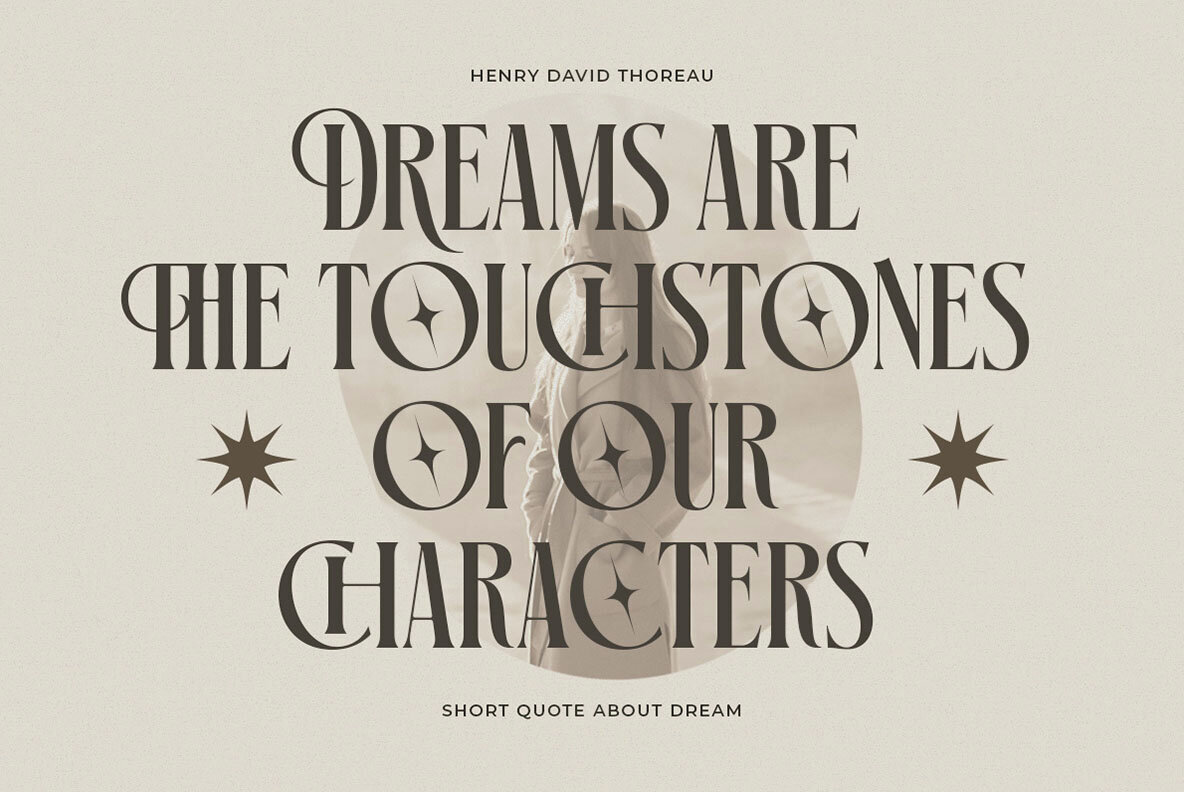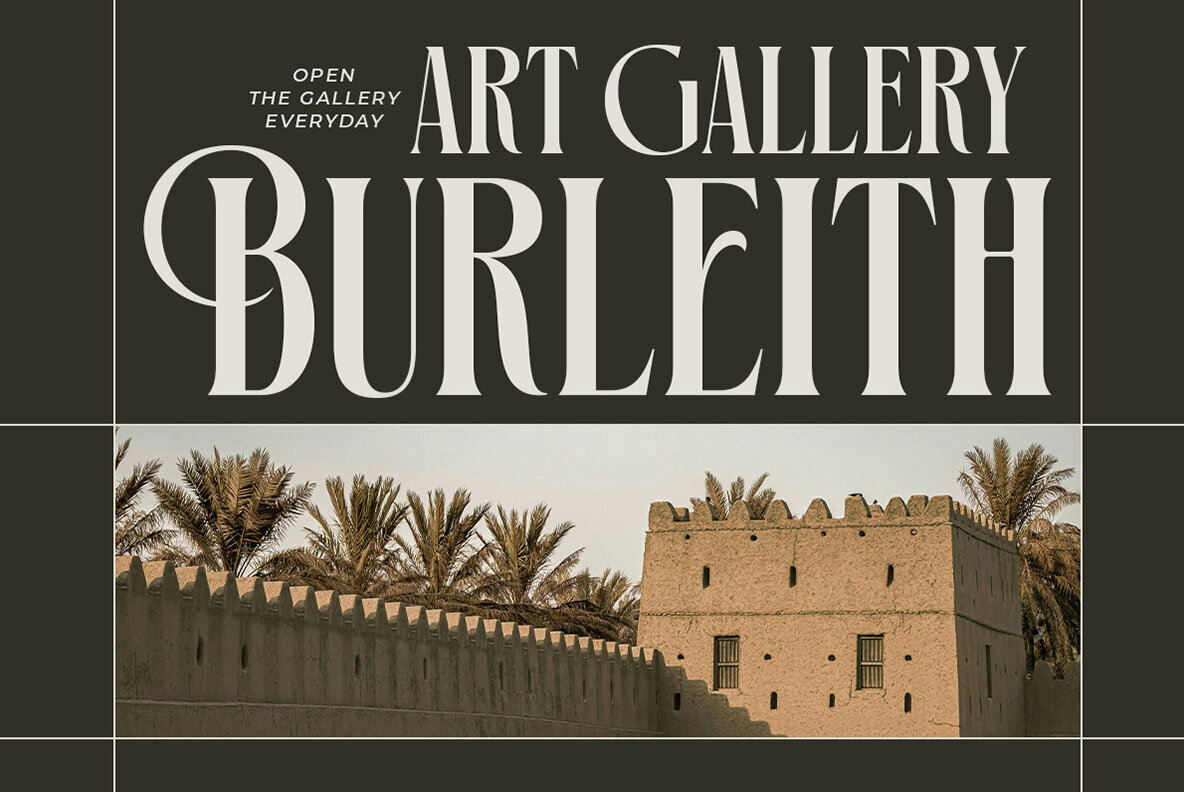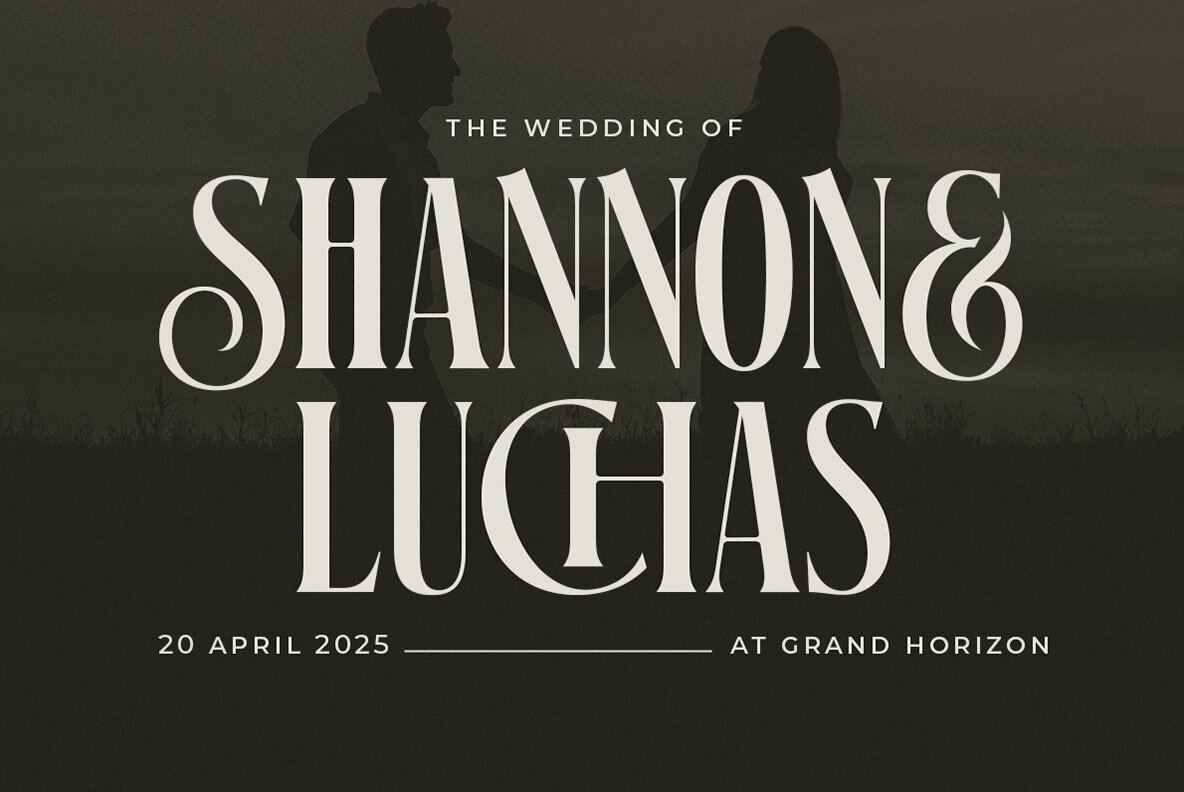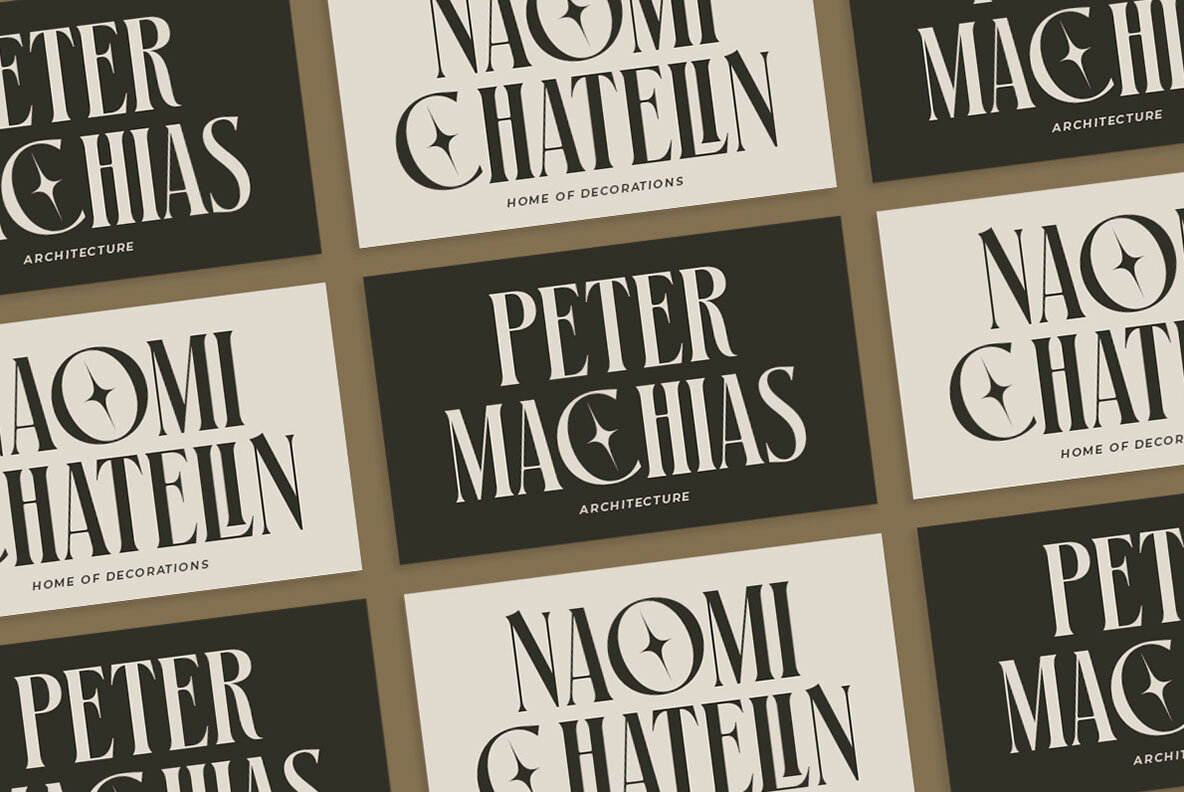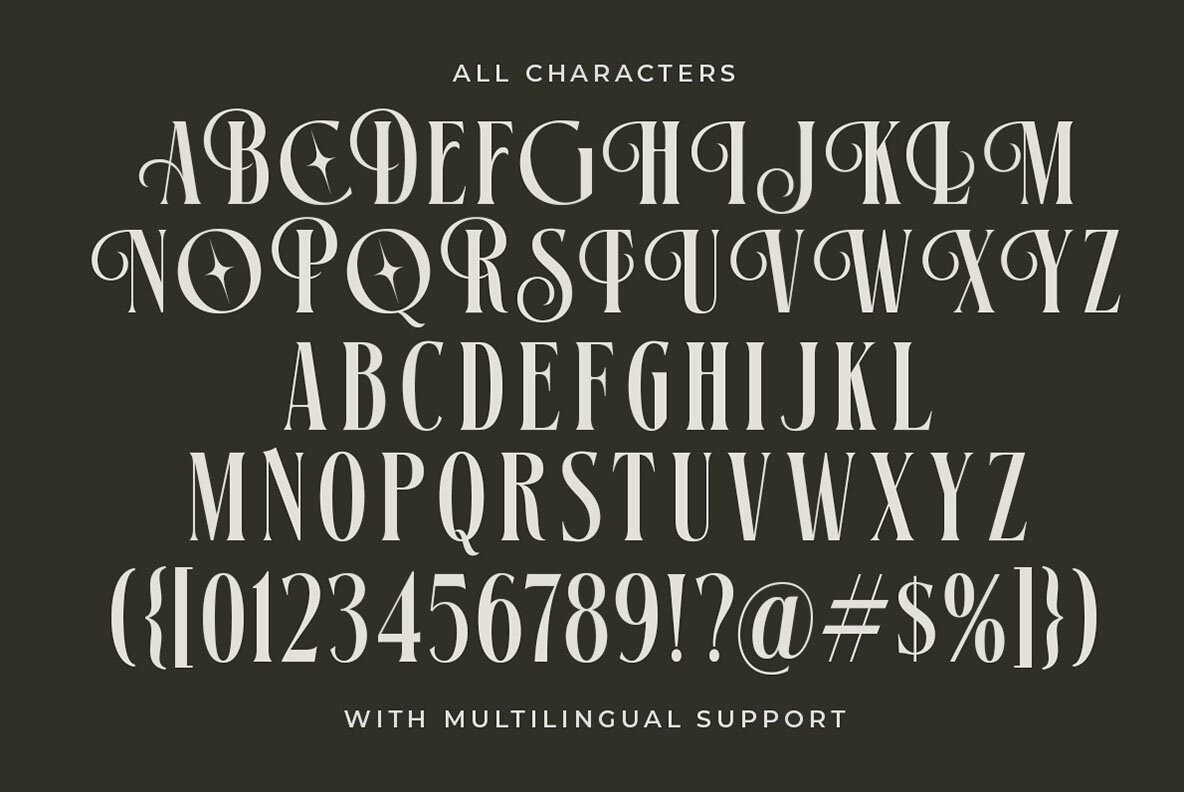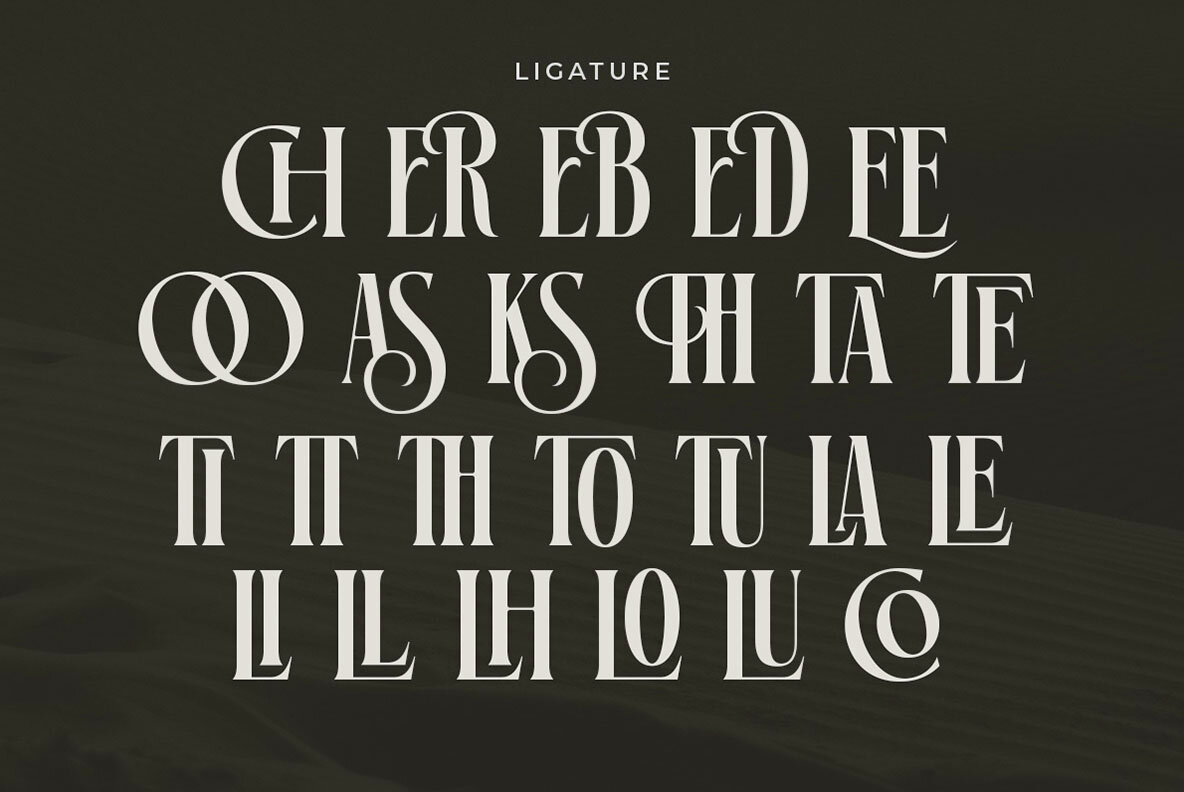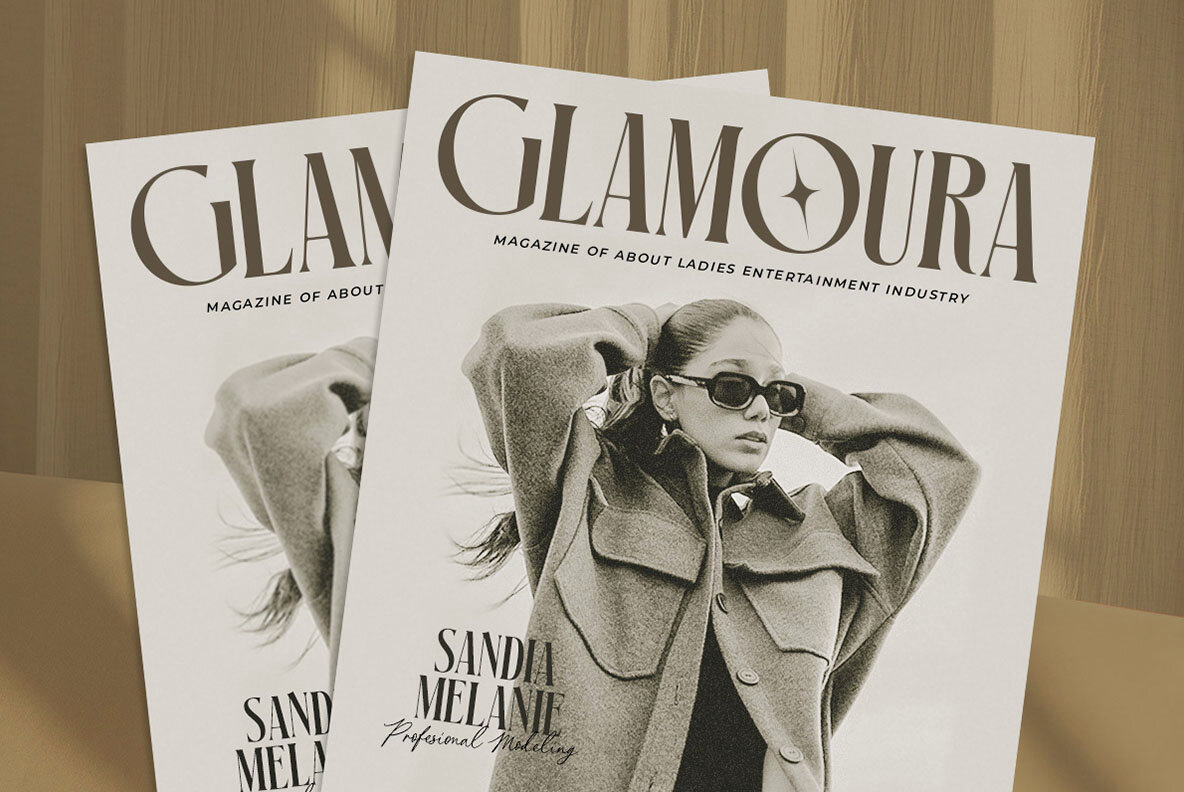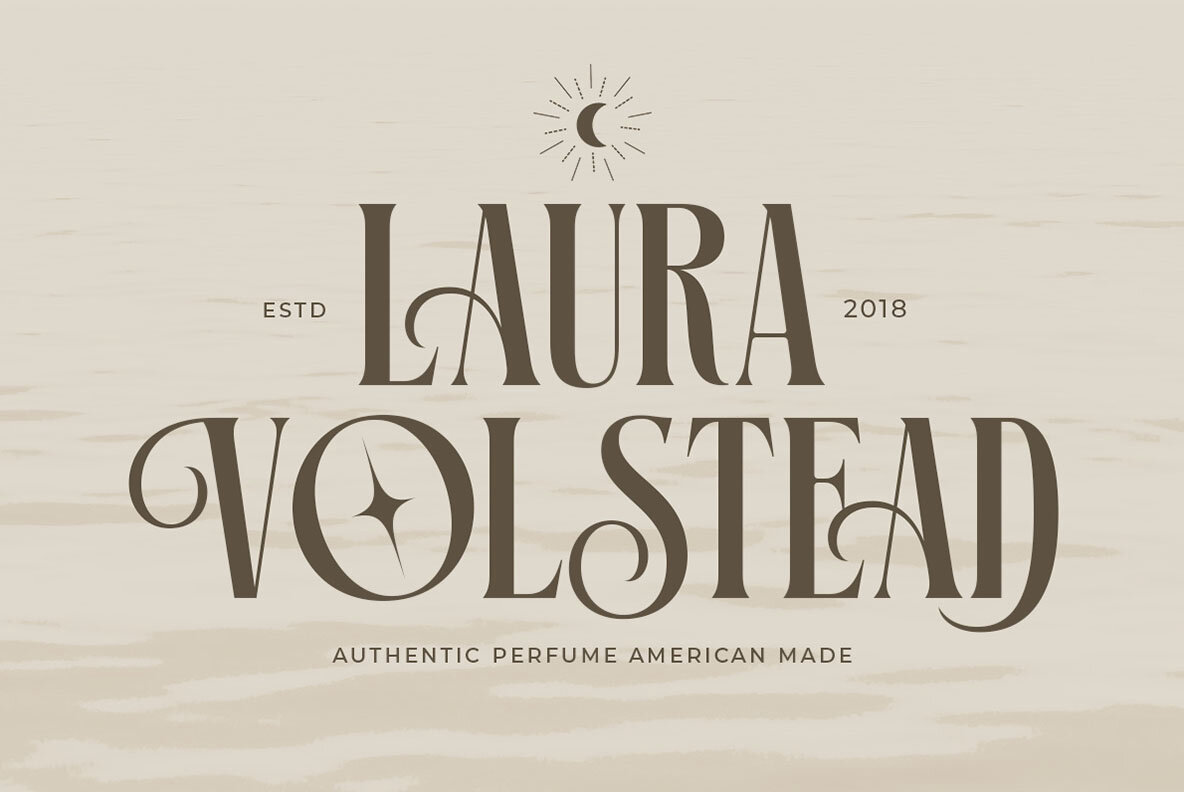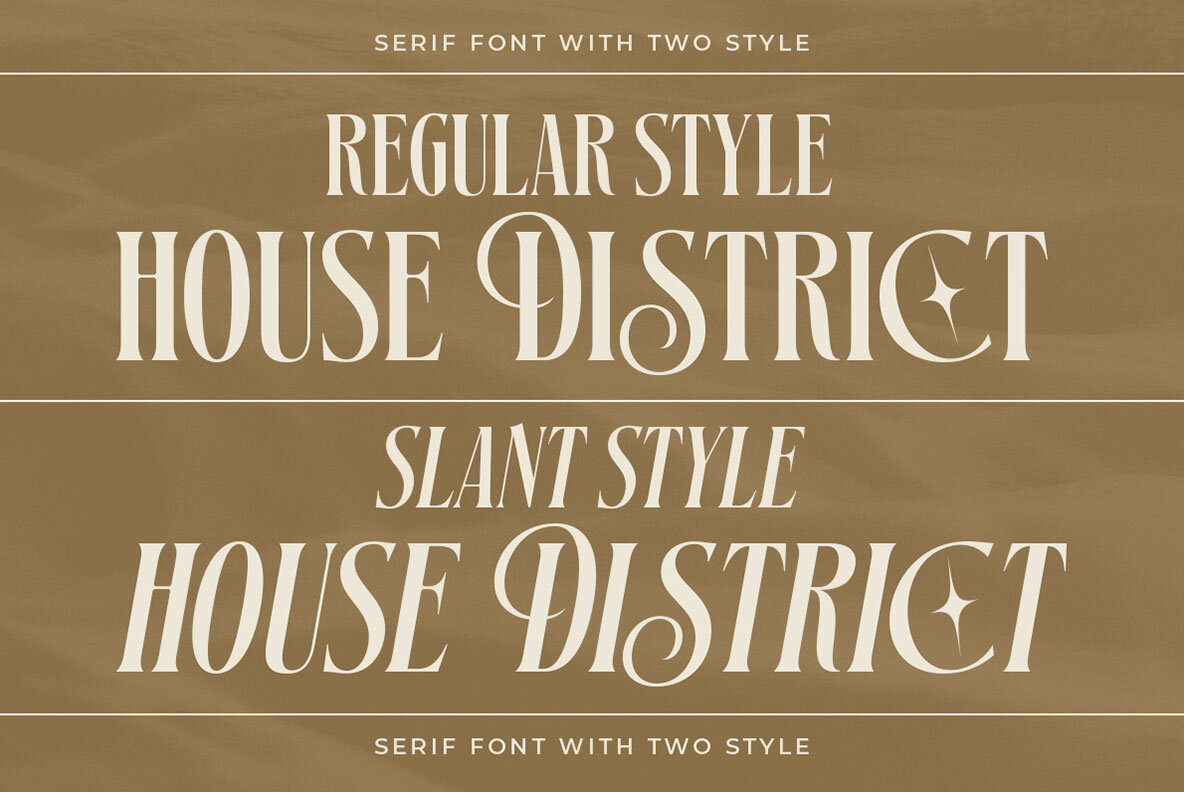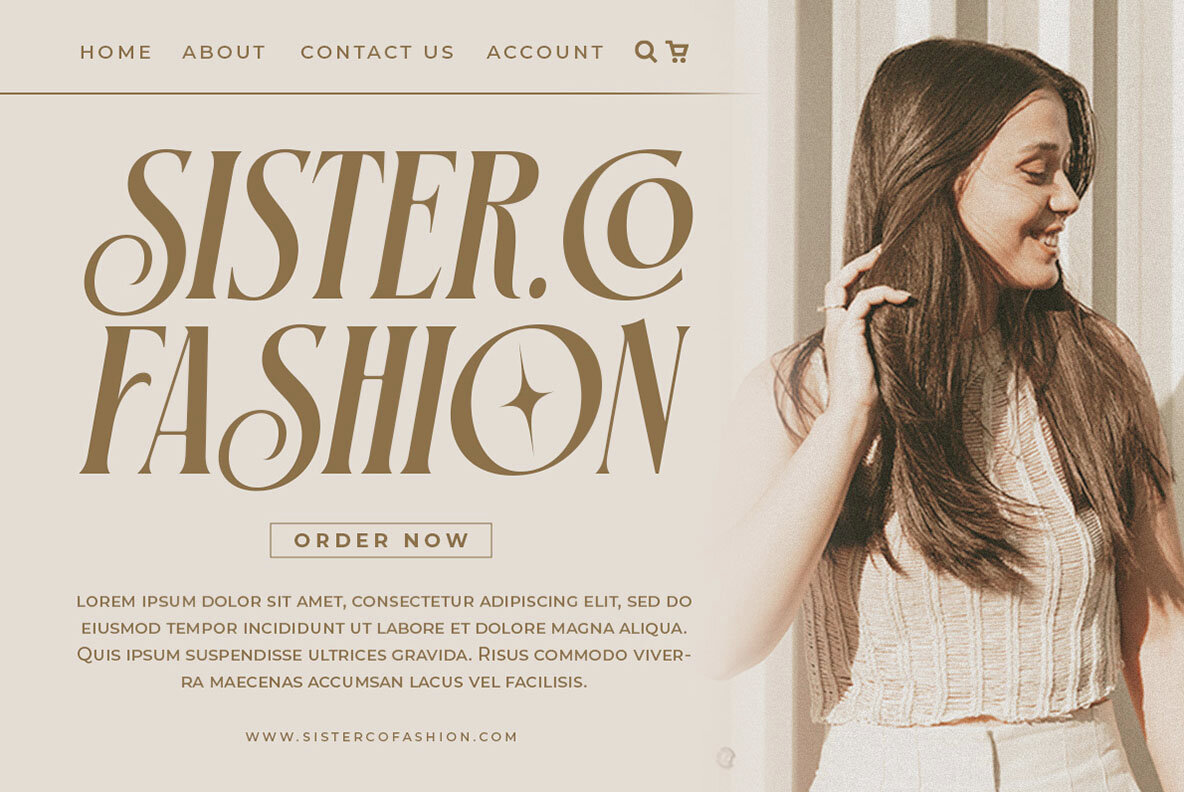
House District Font
Introducing House District, a crafted serif font that blends vintage elegance with contemporary sophistication. Its refined letterforms feature smooth curves, stylish swashes, and striking star-like embellishments, evoking a sense of luxury and high-end craftsmanship. Features: We highly recommend using a program that supports OpenType features and Glyphs panels like many of Adobe apps and Corel Draw, so you can see and access all Glyph variations.